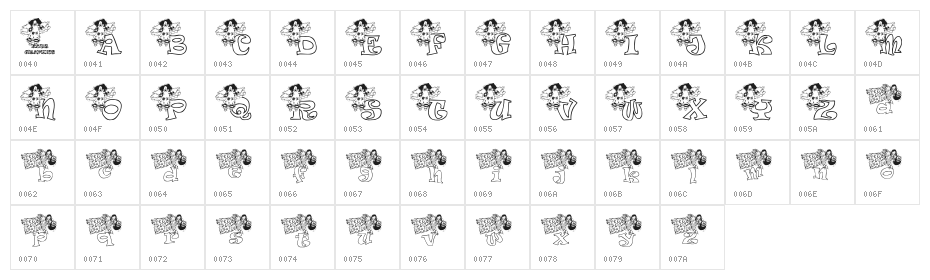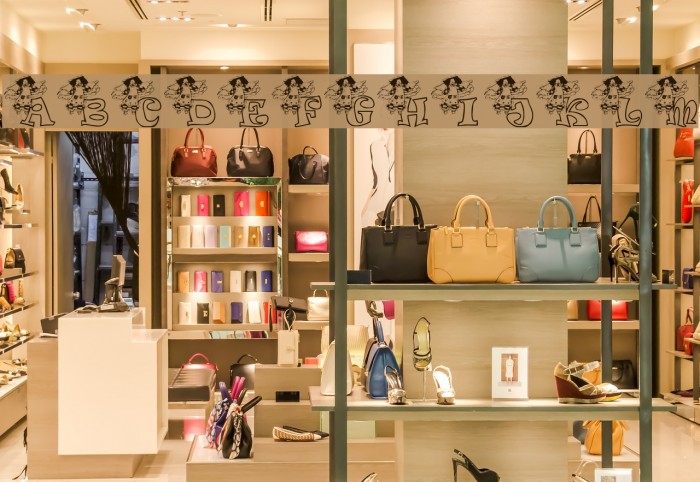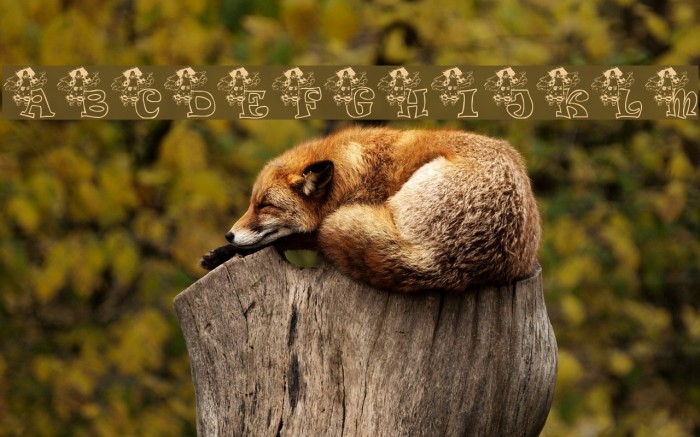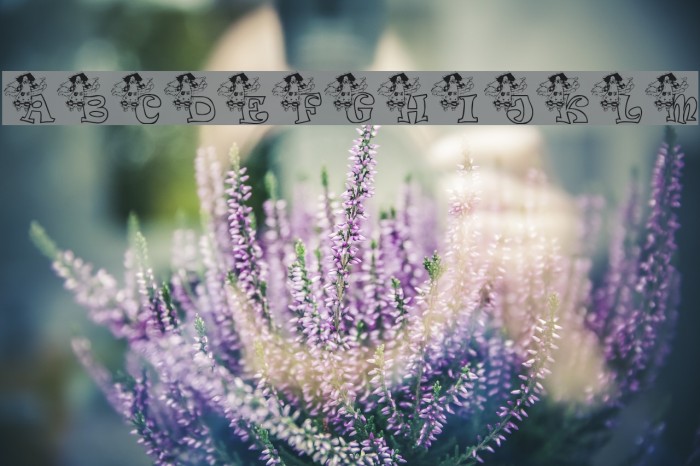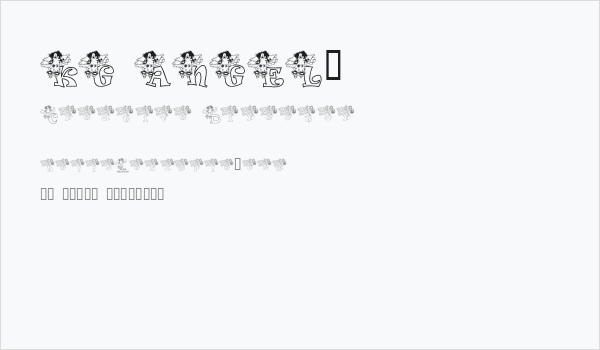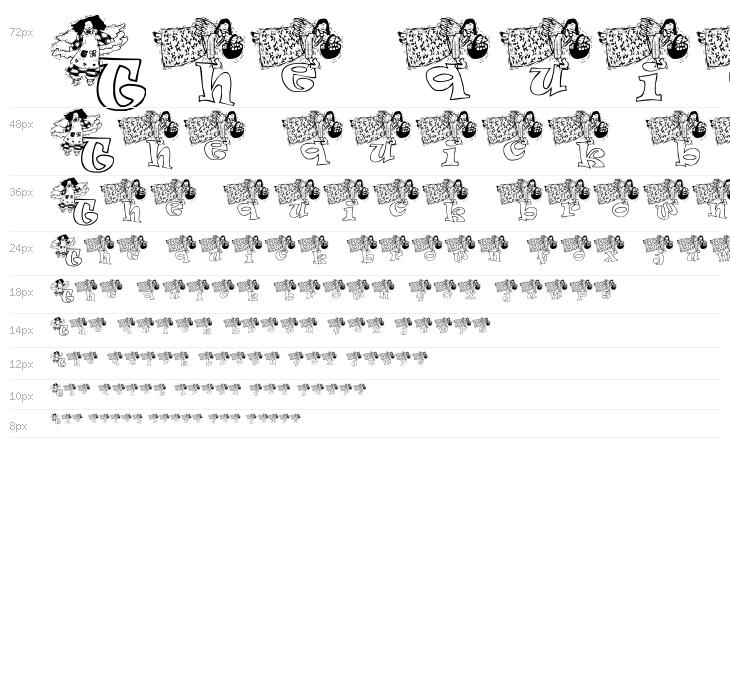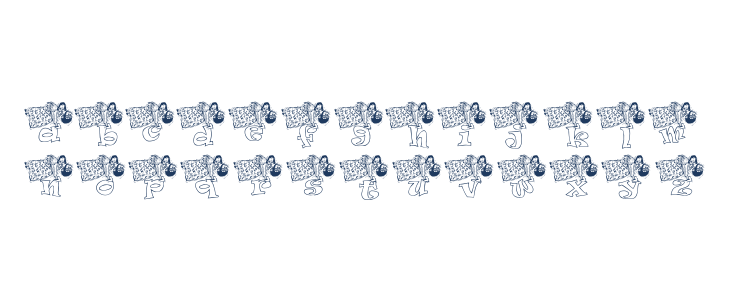
KG ANGEL1 Font
KG ANGEL1 Description
This decorative font features whimsical angel illustrations integrated with each letter, creating a playful and unique design. The uppercase and lowercase letters are adorned with detailed angelic figures, adding a charming and imaginative touch. The font is highly decorative, making it ideal for creative projects that require a touch of fantasy or whimsy. The characters are outlined, providing a light and airy feel, while the intricate details of the angels offer a sense of depth and artistry. This font does not include numerals or standard punctuation, focusing instead on its artistic letterforms.
KG-ANGEL1 UPPERCASE
KG-ANGEL1 LOWERCASE
KG-ANGEL1 OTHER CHARS
| Proposed Projects | Ideal for children's book covers, greeting cards, whimsical posters, and fantasy-themed invitations. |